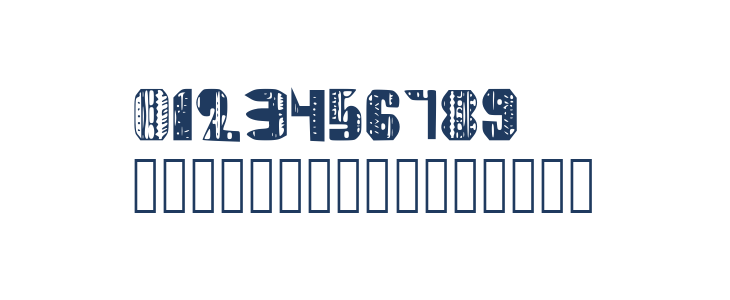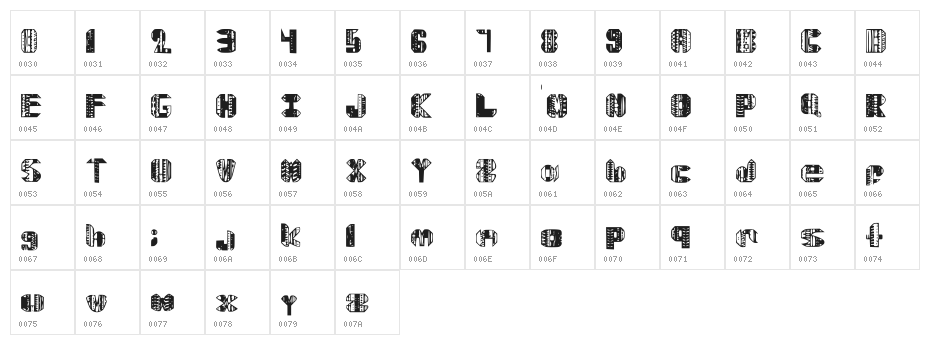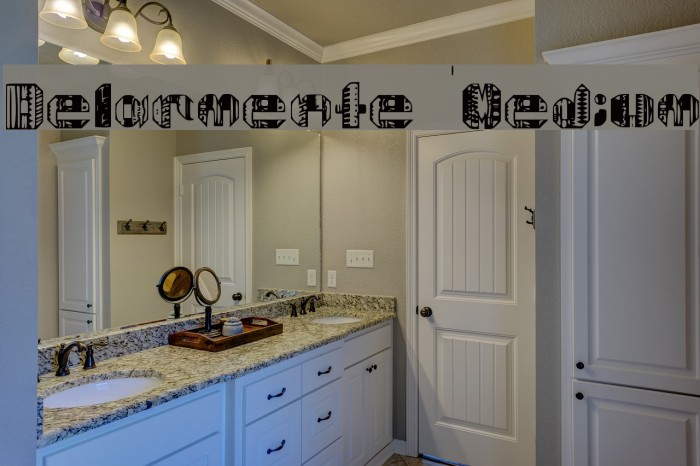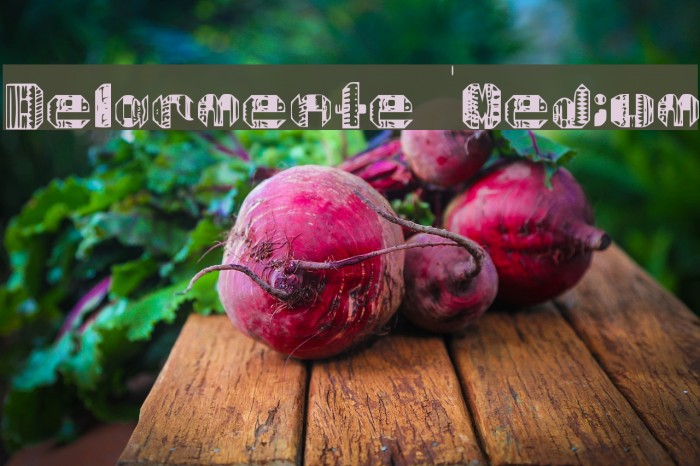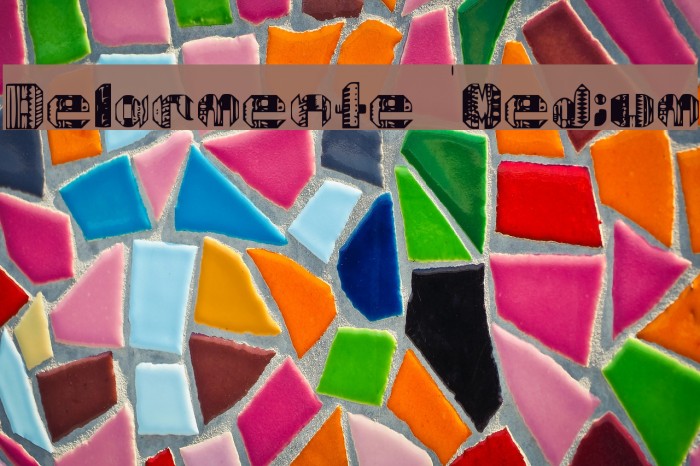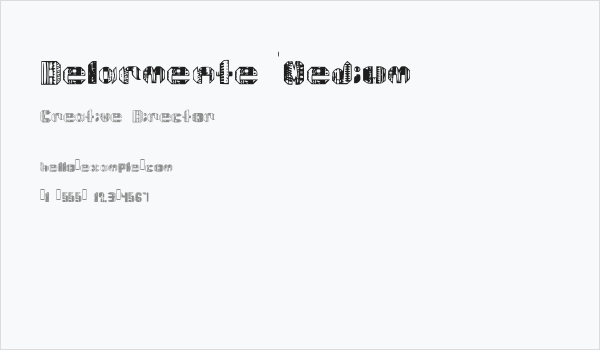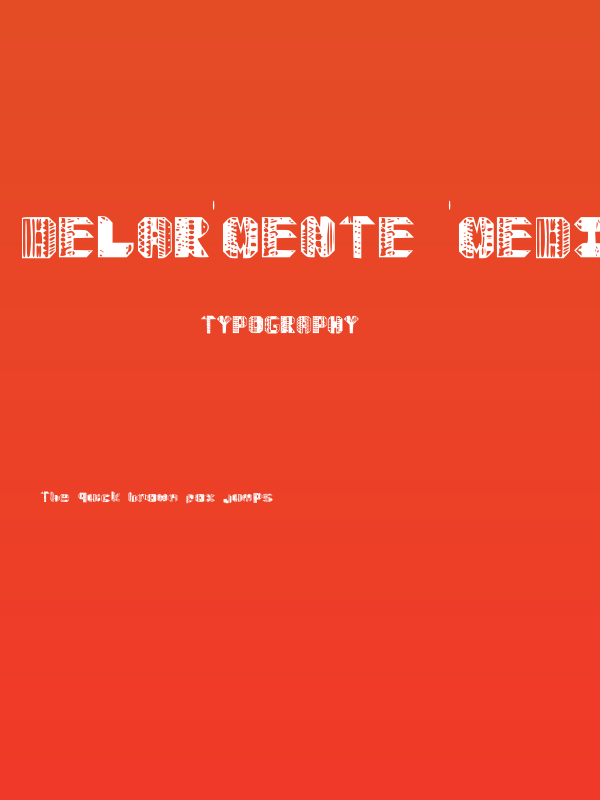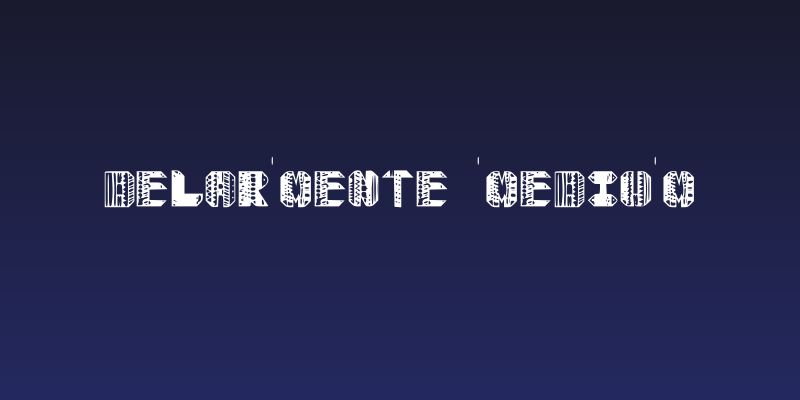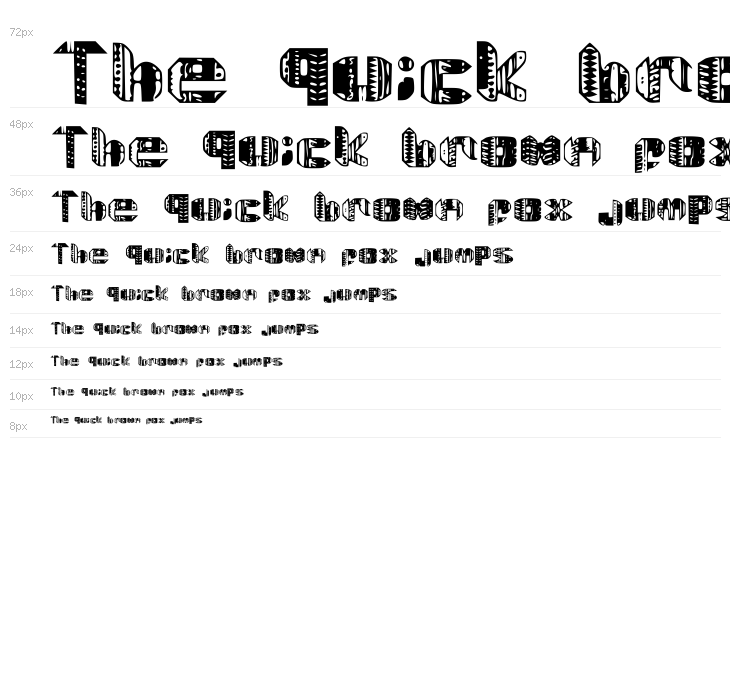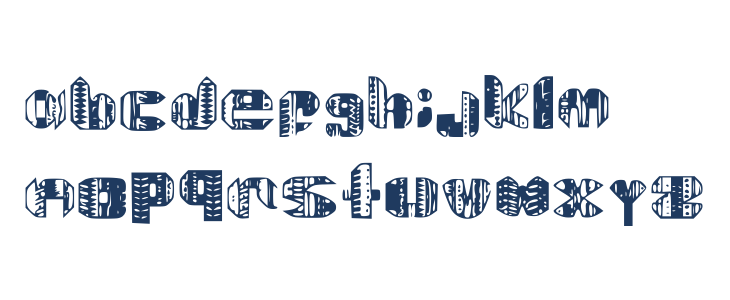
Delarmente Medium Font
Delarmente Medium Description
This font features a bold and decorative style with intricate patterns filling each character, creating a visually striking appearance. The letters are blocky and geometric, with a mix of solid and patterned areas that give a sense of depth and texture. The uppercase and lowercase letters maintain a consistent design, while the numbers and special characters follow the same decorative theme. The overall look is unique and artistic, making it ideal for projects that require a standout typeface.
| Proposed Projects | Ideal for posters, album covers, branding, and any project that needs a bold, artistic touch. |